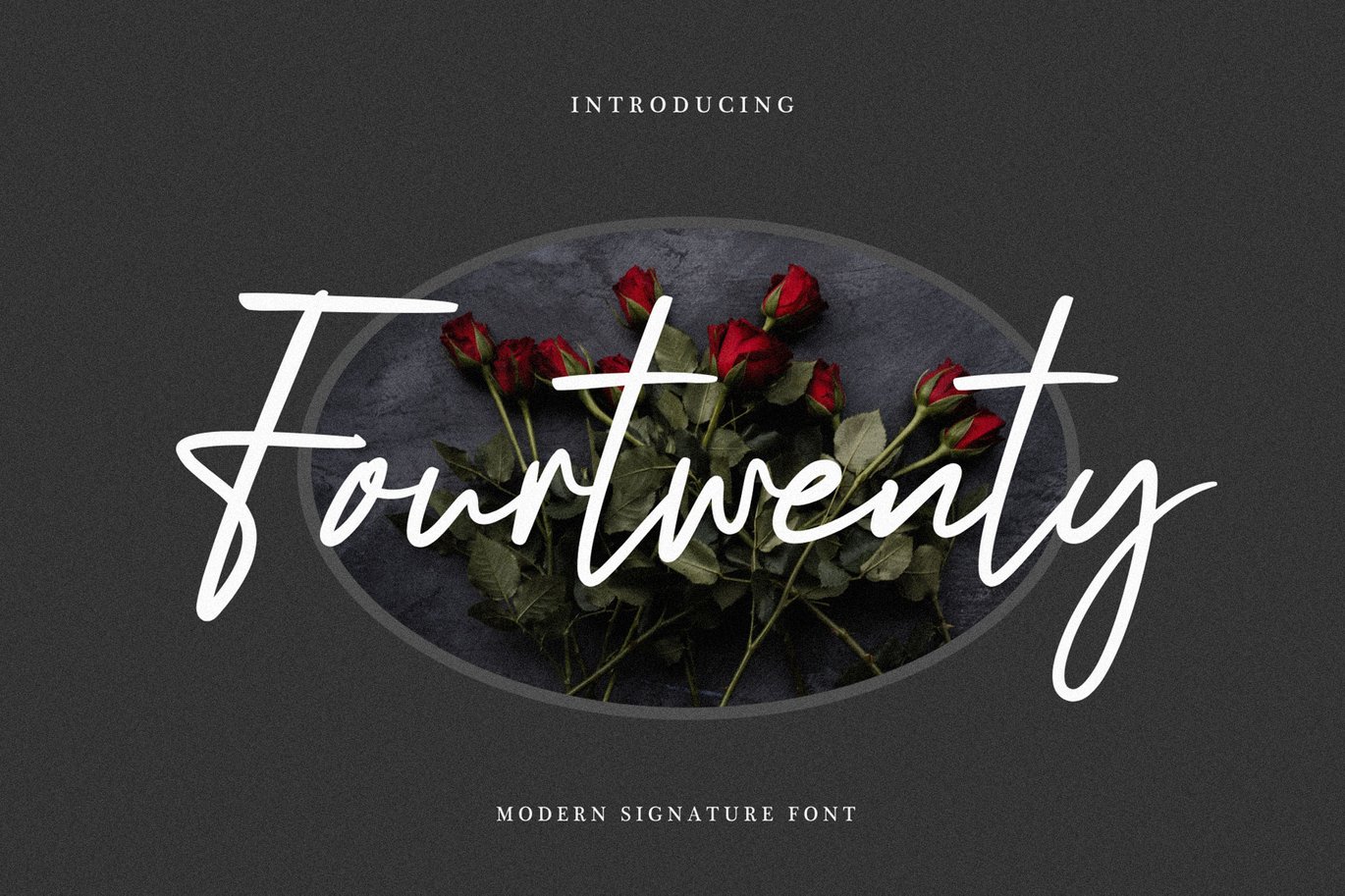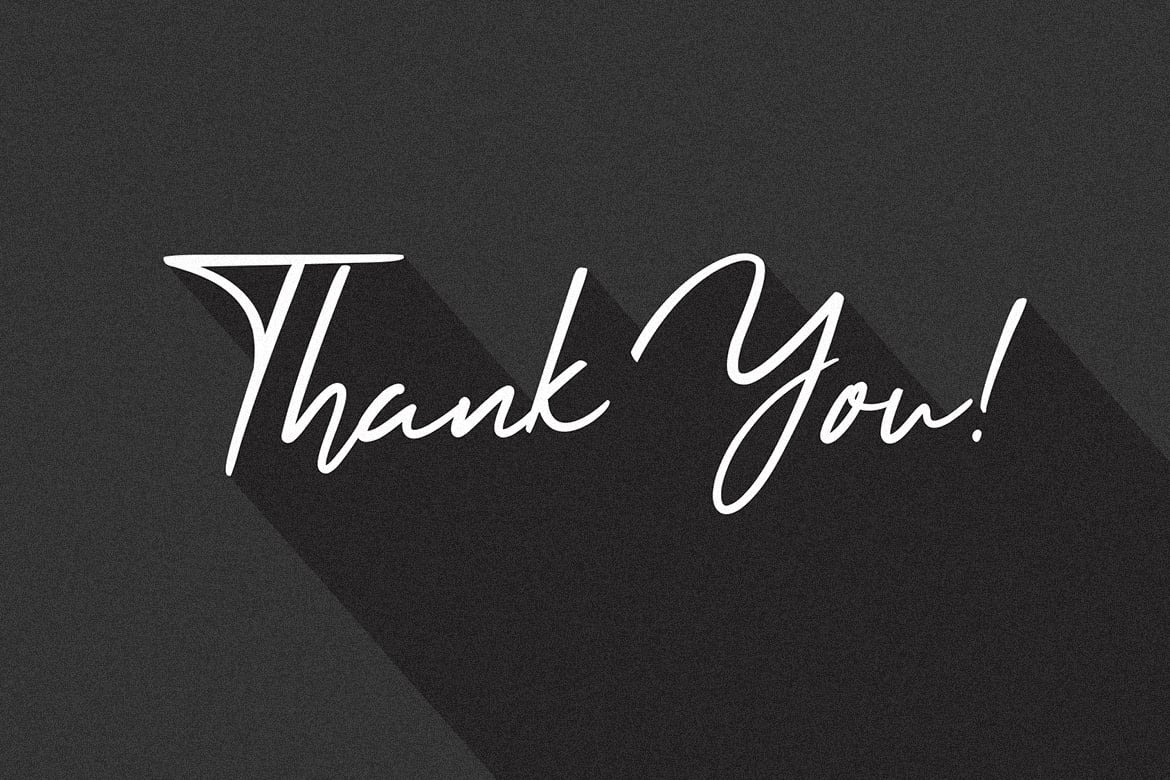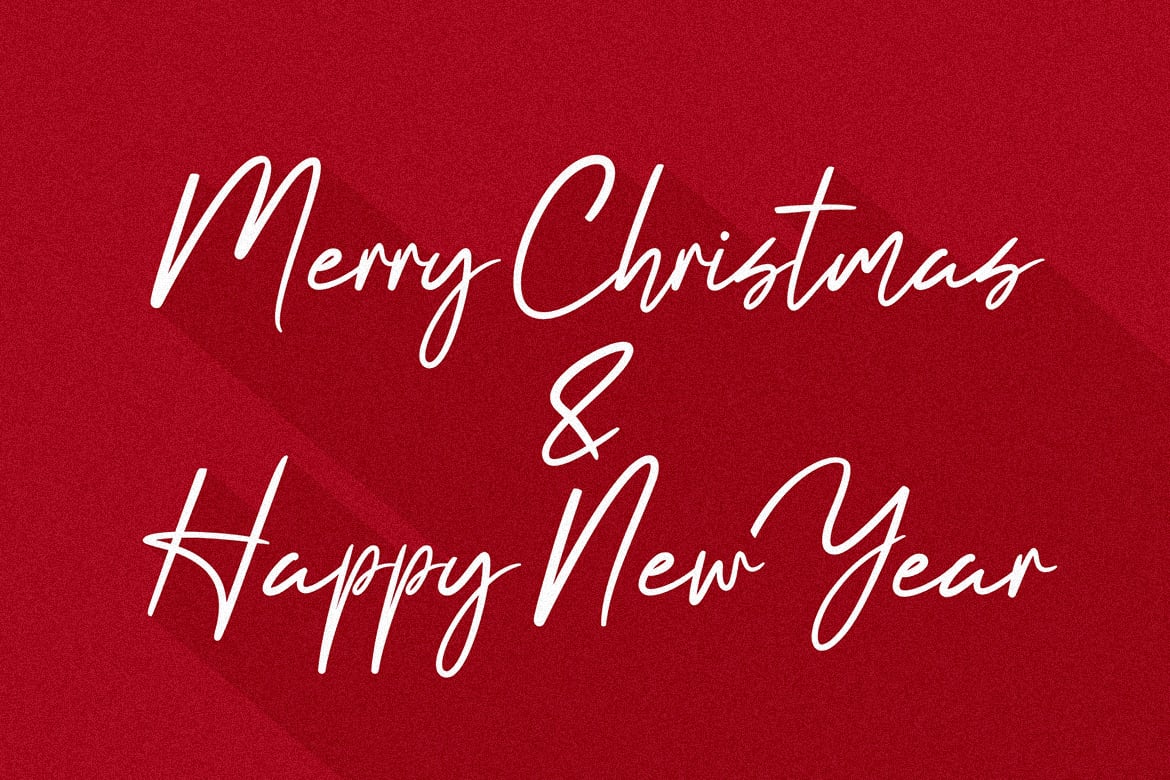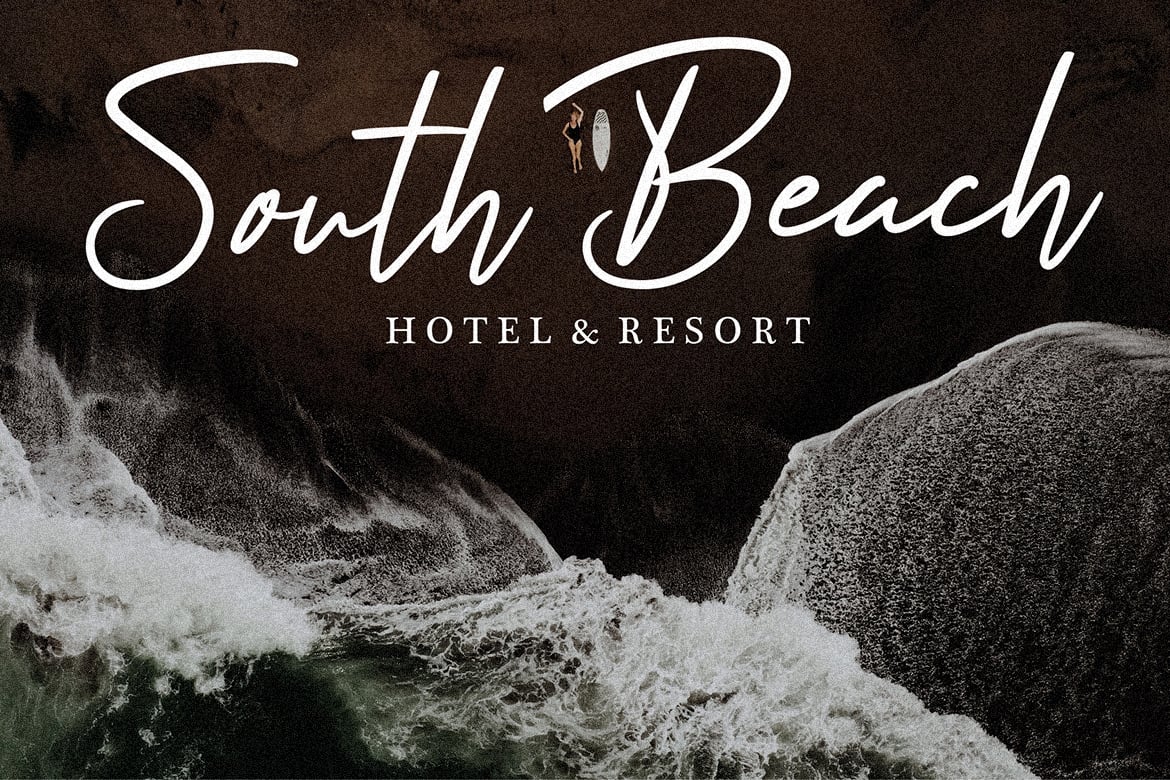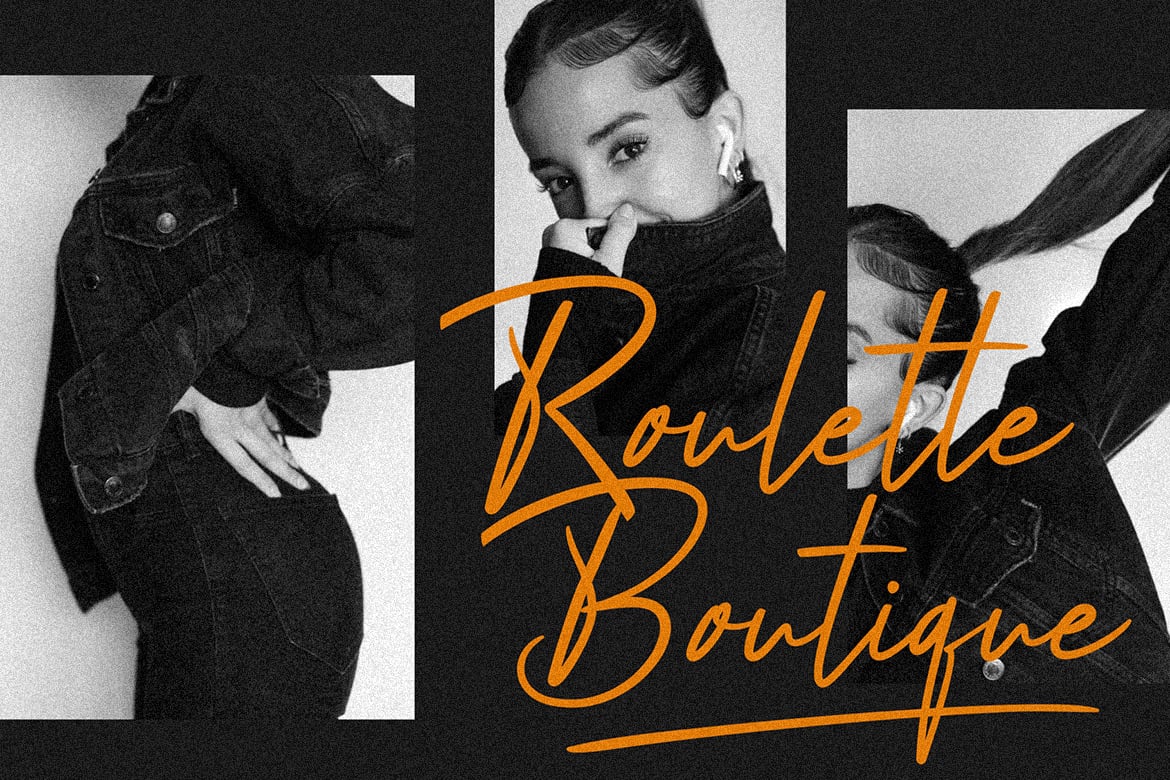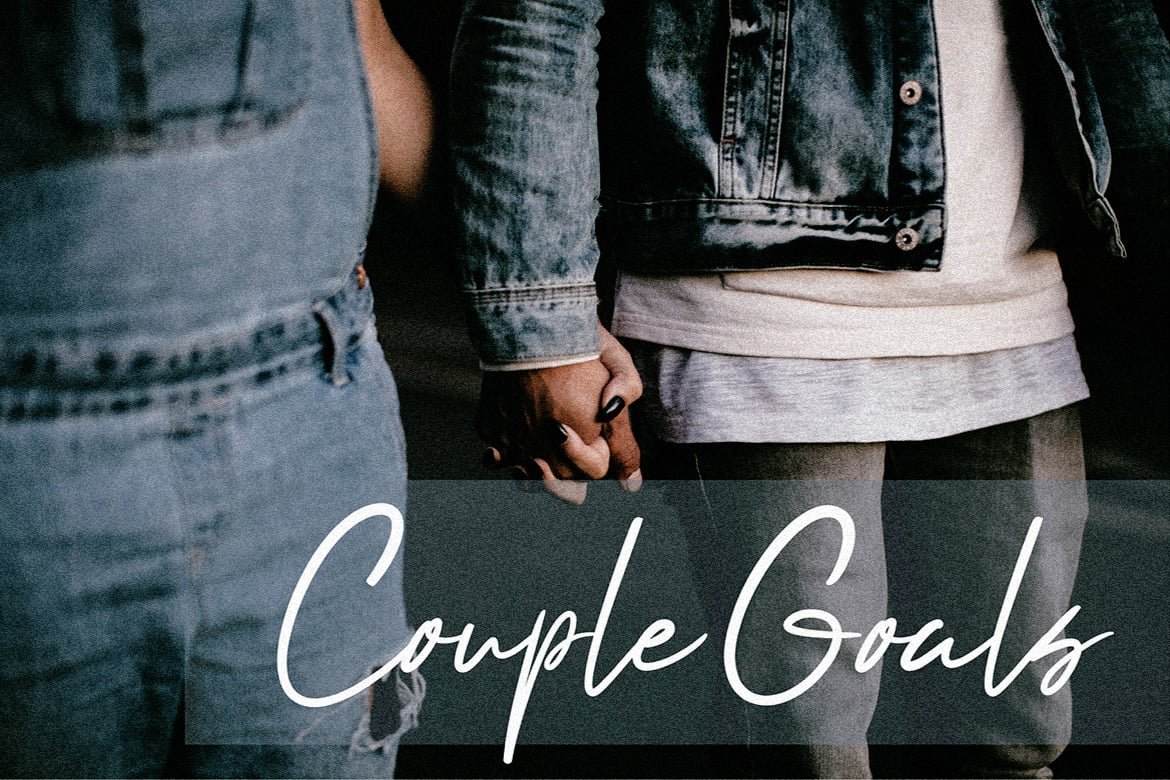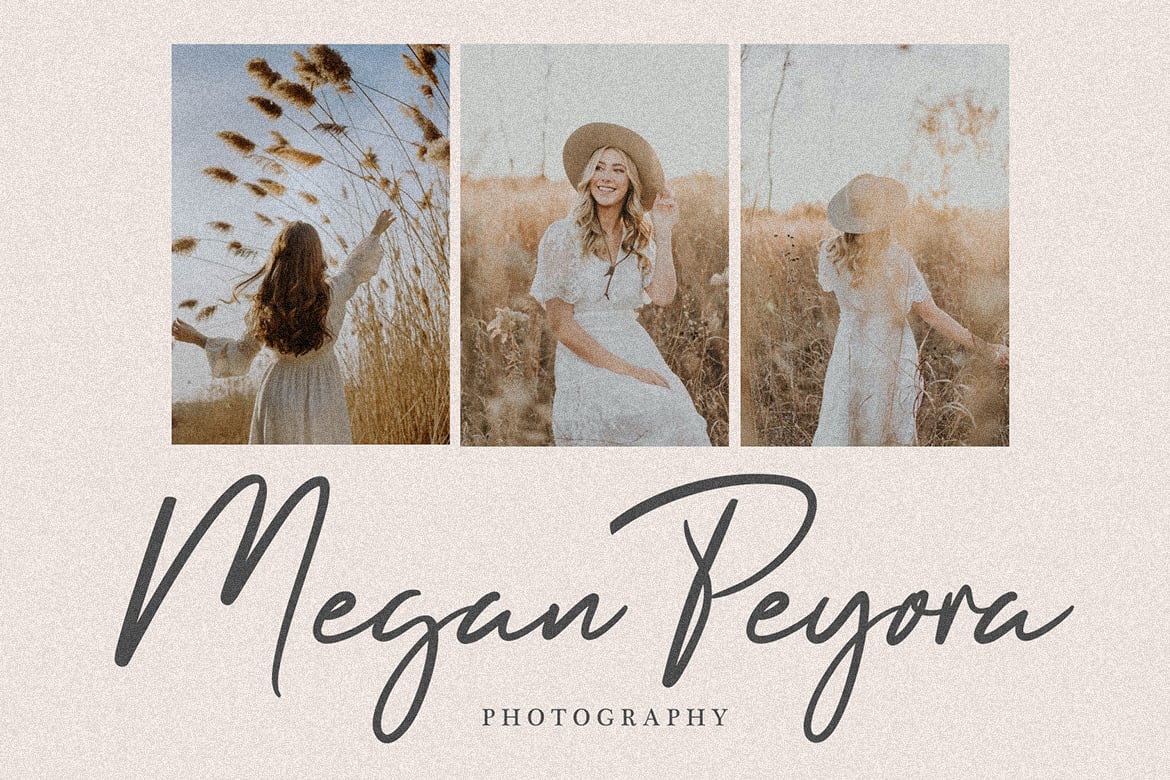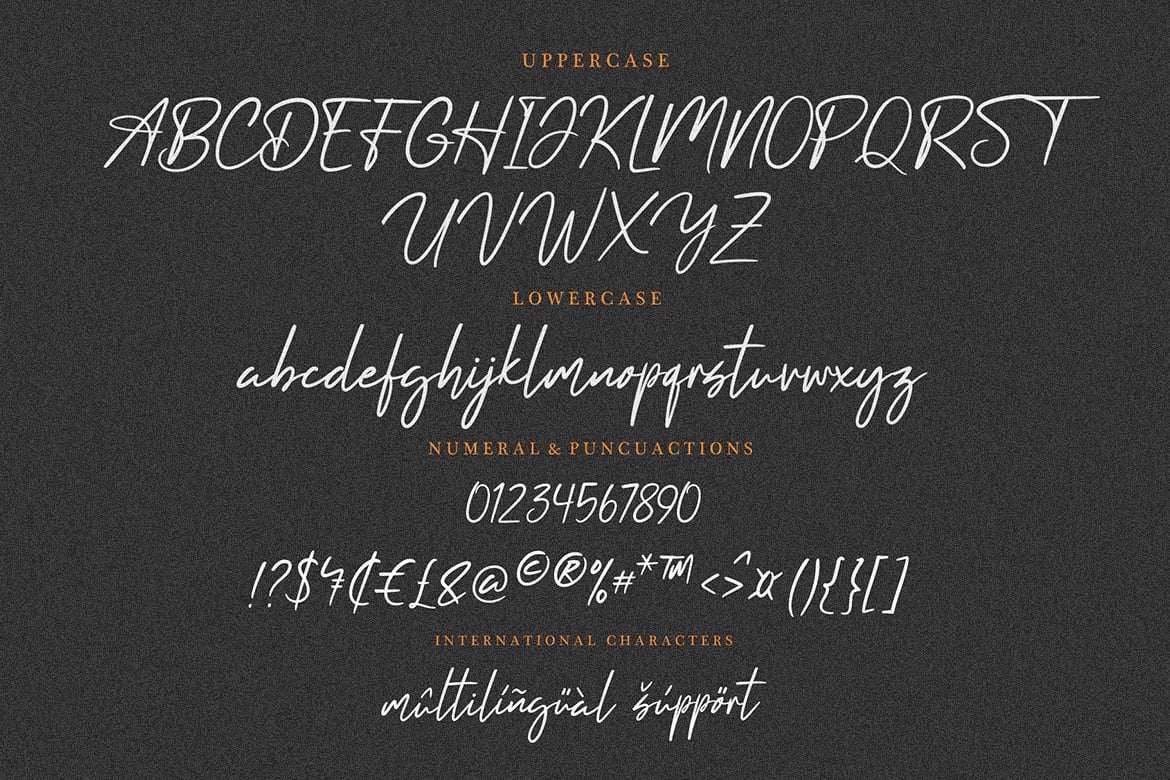
Fourtwenty Signature Font
Fourtwenty is a modern calligraphy font with handwritten Style.
Fourtwenty includes a full set of uppercase and lowercase letters, multilingual symbols, numerals, punctuation and ligatures.
Fourtwenty Signature is great for wedding invitation card designs, logotypes, business card designs, advertisements, product designs, stationery, product packaging, quotes and so on.